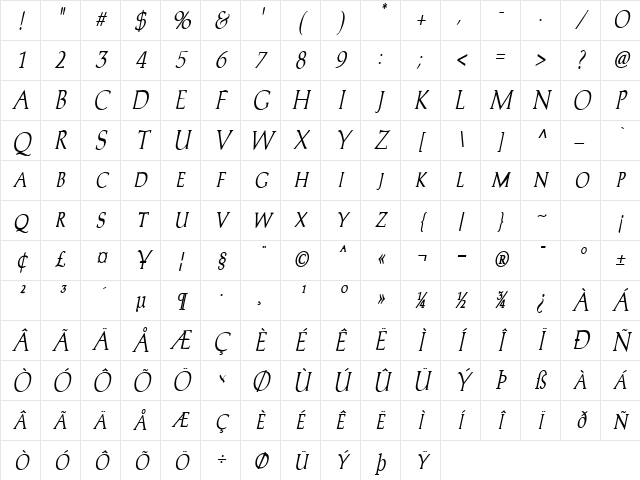
Trajan'sCapsCondensed Bold Italic Free Font
Trajan'sCapsCondensed Bold Italic
Complete Trajan'sCapsCondensed Bold Italic glyph index. Displaying only characters natively supported by Trajan'sCapsCondensed Bold Italic font.
Design Context for Trajan'sCapsCondensed
Trajan'sCapsCondensed is a composed and adaptable typeface that performs quietly and consistently across a wide range of design contexts. The slanted form adds forward momentum and visual energy. Its bold stroke weight gives it real presence on the page. Its narrow stance lets it pack a punch even in space-constrained designs.